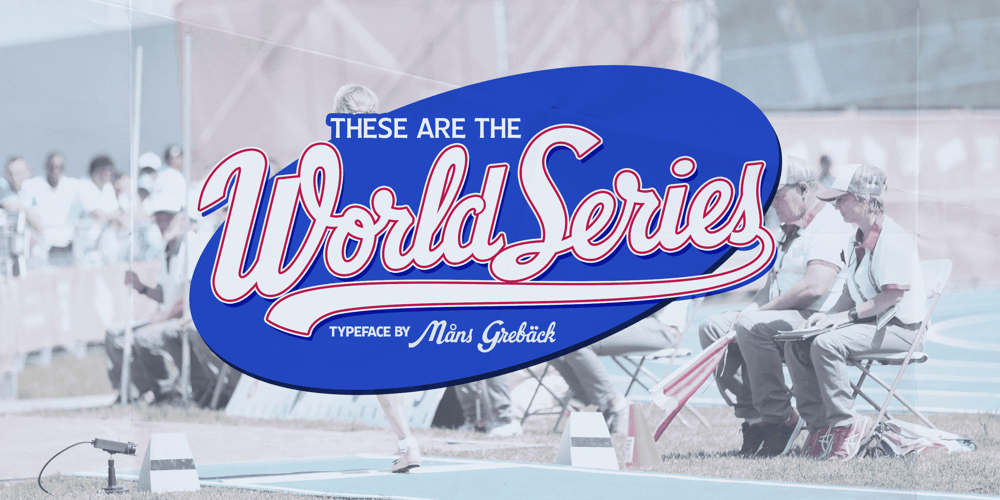
World Series Font Family was designed by Måns Grebäck and published by Mans Greback. World Series contains 1 styles and family package options. World Series is a retro script typeface.Drawn and created by Mans Greback in 2021, this calligraphic lettering has a unique brush style and a confident appearance. Its vintage theme does well as a logotype or any typographic art that needs to look custom made. Use underscore _ to create swashes. Example: Baseballer_Use multiple underscores to make swashes of different lengths. (Download required)The font is built with advanced OpenType functionality and has a guaranteed top-notch quality, containing stylistic and contextual alternates, ligatures and more features; all to give you full control and customizability. It has extensive lingual support, covering all Latin-based languages, from North Europa to South Africa, from America to South-East Asia. It contains all characters and symbols you’ll ever need, including all punctuation and numbers.